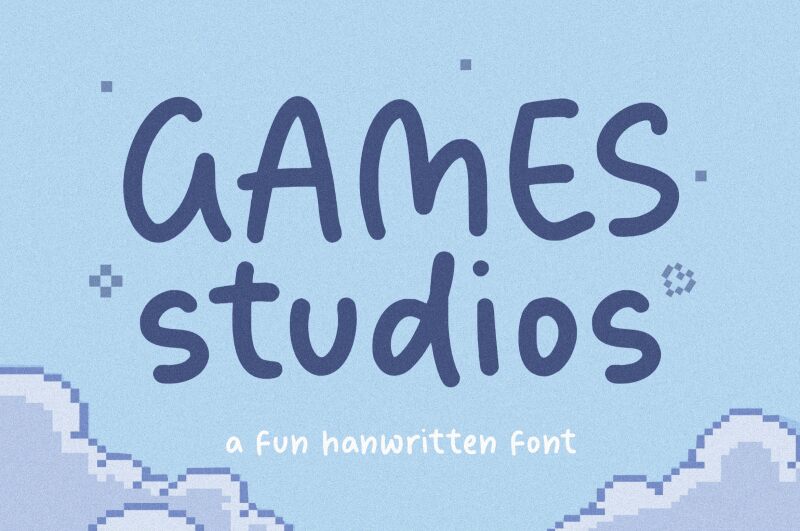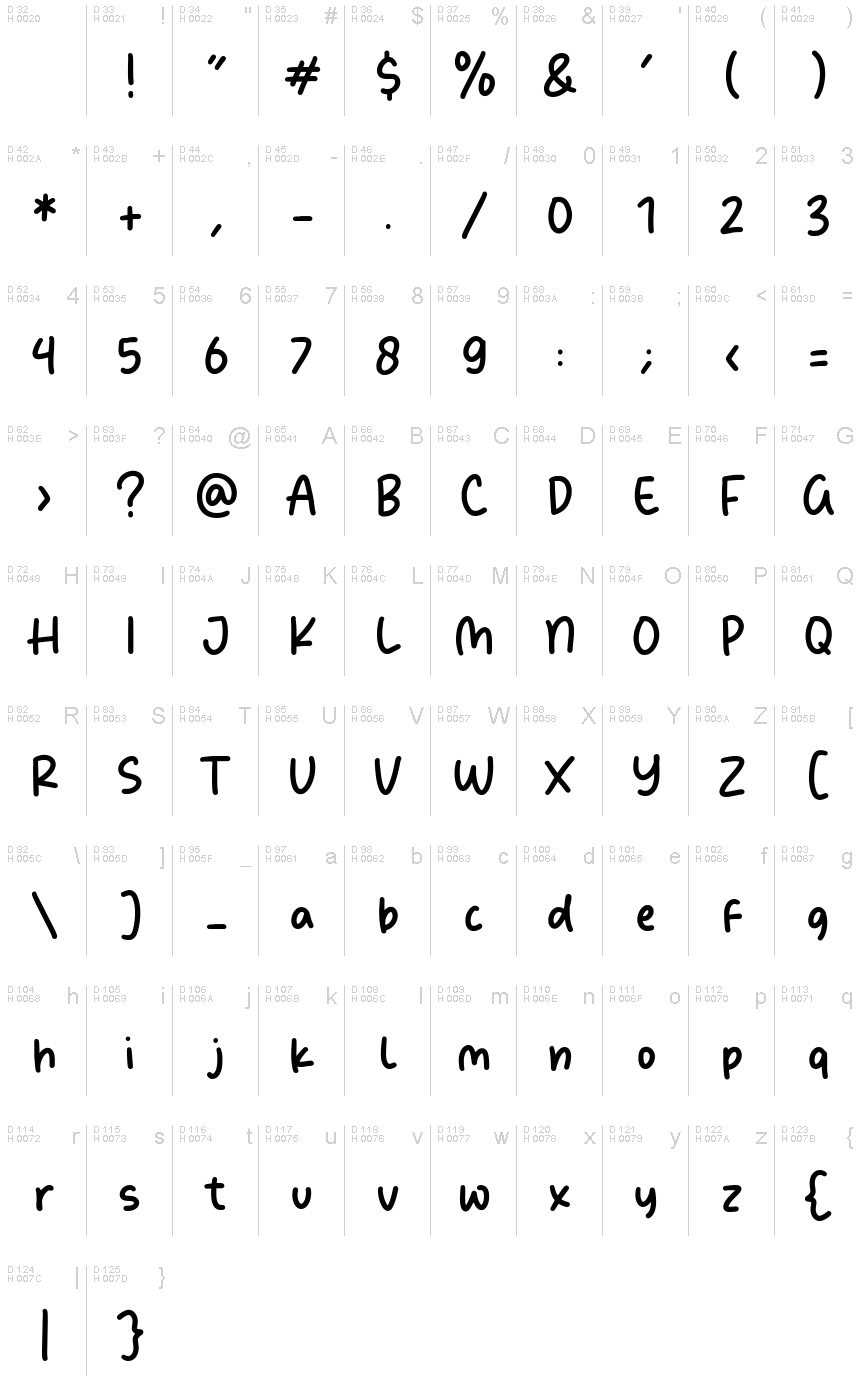
Games Studios
Games Studios font, crafted by Balpirick Studio, exudes playful charm and a relaxed vibe with its handwritten style. The dynamic strokes capture an inviting essence, making each character feel lively and personal. With an expressive flair, it combines a light touch with delightful curves that give it character and warmth.
Ideal for creative projects, Games Studios shines in branding materials, social media graphics, and casual event invites, where a friendly tone is essential. Its engaging aesthetic offers versatility across various design contexts while ensuring your message resonates with authenticity and approachability.